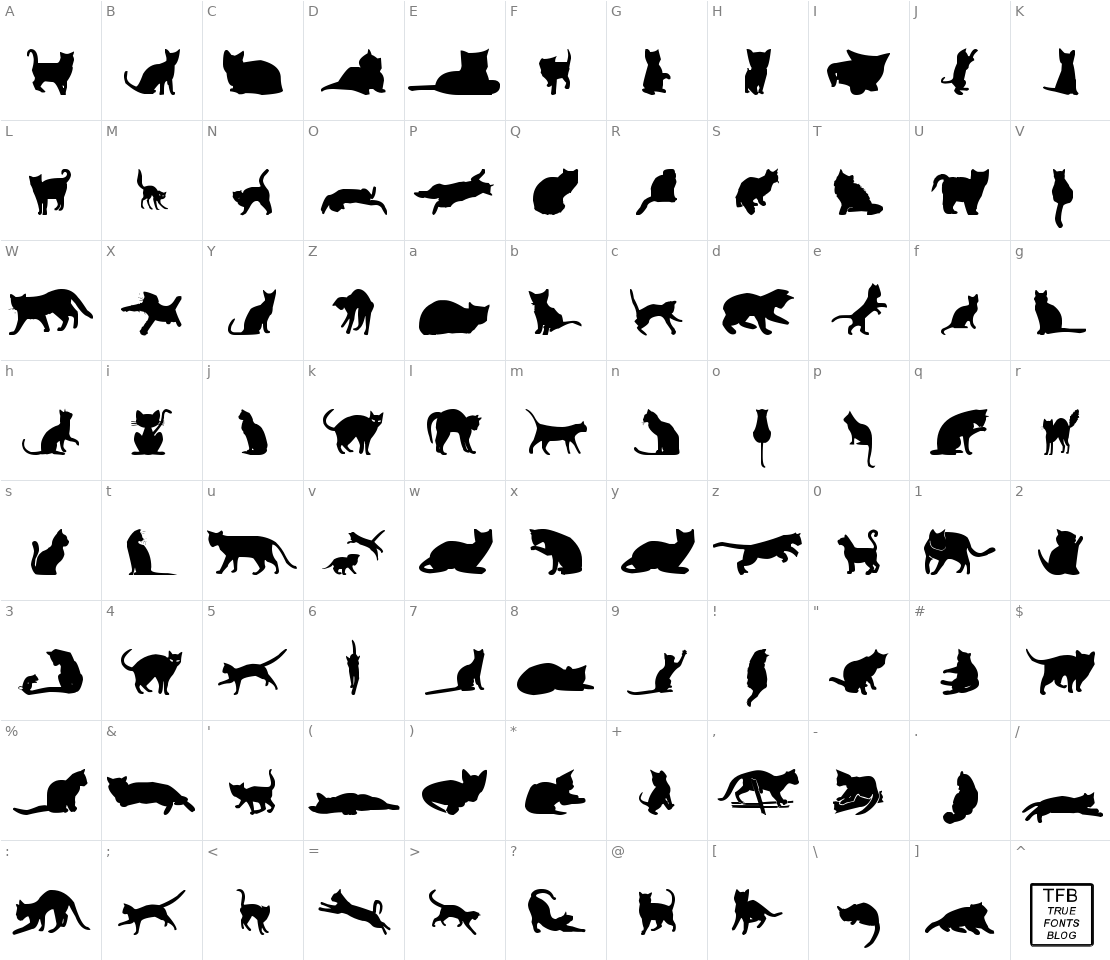
Kitty Cats TFB
Kitty Cats TFB is a decorative dingbat font from zanatlija made up entirely of cat silhouettes and feline-themed symbols. Each character maps to a different cat pose or icon, giving it obvious utility for pet-related projects, greeting cards, scrapbooking, or anywhere a quick illustrated cat motif saves you from hunting down separate clip art.